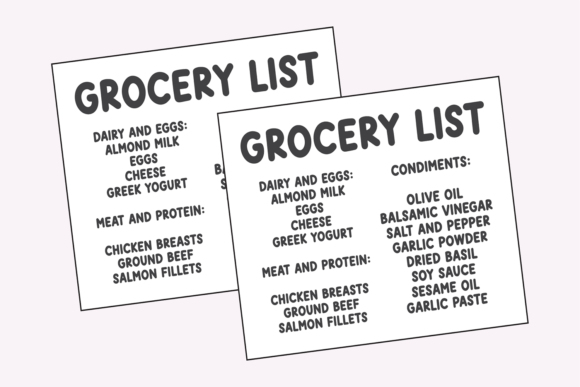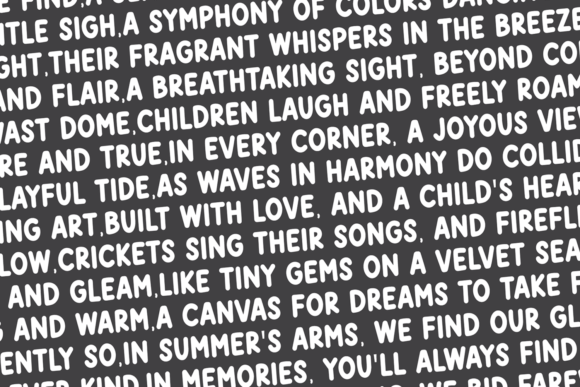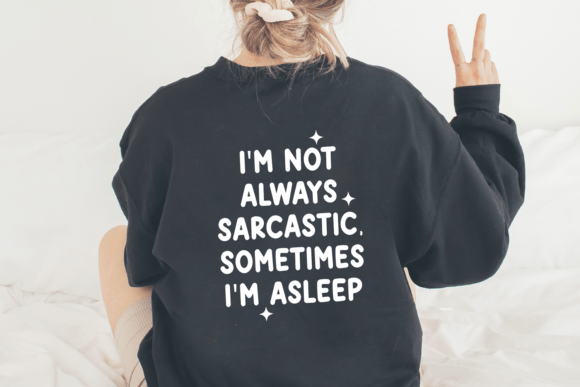
Introducing Good Vibes Font: Adding a Personal Touch to Your Designs
Are you looking for a font that can add a casual and friendly feel to your projects? Look no further than Good Vibes Font. This bold marker handwriting font is perfect for designers and crafters who want to give their work a personal touch. In this article, we’ll explore the features and benefits of Good Vibes Font and how it can elevate your designs.
What is Good Vibes Font?
Good Vibes Font is a bold marker handwriting font that looks like it was written with a thick marker. Its casual and friendly feel makes it perfect for a variety of design projects, from social media graphics to craft projects. The font’s unique style gives it a personal touch that’s hard to achieve with traditional fonts.
Key Features of Good Vibes Font
- Bold and Marker-Like Style: Good Vibes Font has a bold and marker-like style that gives it a casual and friendly feel.
- Handwriting Font: This font is a handwriting font, which means it has a personal and unique touch.
- Easy to Read: Despite its bold style, Good Vibes Font is easy to read, making it perfect for use in a variety of design projects.
- Versatile: Good Vibes Font can be used in a variety of design projects, from social media graphics to craft projects.
Benefits of Using Good Vibes Font
So, why should you use Good Vibes Font in your designs? Here are just a few benefits:
- Adds a Personal Touch: Good Vibes Font adds a personal touch to your designs, making them stand out from the crowd.
- Creates a Casual and Friendly Feel: The font’s casual and friendly feel makes it perfect for designs that need to convey a relaxed and approachable vibe.
- Perfect for Designers and Crafters: Good Vibes Font is perfect for designers and crafters who want to add a unique touch to their work.
Design Project Ideas Using Good Vibes Font
Good Vibes Font can be used in a variety of design projects. Here are a few ideas to get you started:
- Social Media Graphics: Use Good Vibes Font to create social media graphics that are fun and engaging.
- Craft Projects: Use the font to create craft projects, such as handmade cards and gift tags.
- Planners and Journals: Use Good Vibes Font to create planners and journals that are fun and functional.
- Invitations and Party Decor: Use the font to create invitations and party decor that sets the tone for a fun and casual event.
Good Vibes Font is a bold marker handwriting font that’s perfect for designers and crafters who want to add a personal touch to their work. Its casual and friendly feel makes it perfect for a variety of design projects, from social media graphics to craft projects. With its ease of use and versatility, Good Vibes Font is a great addition to any designer’s or crafter’s toolkit.